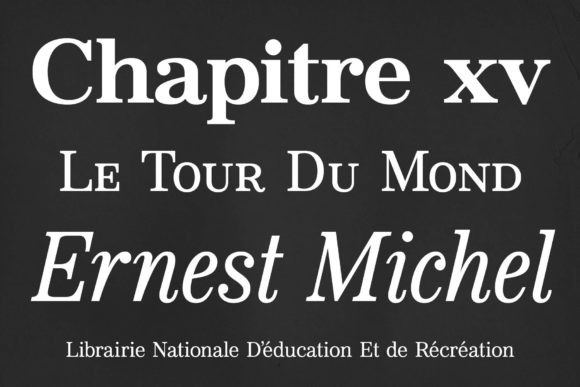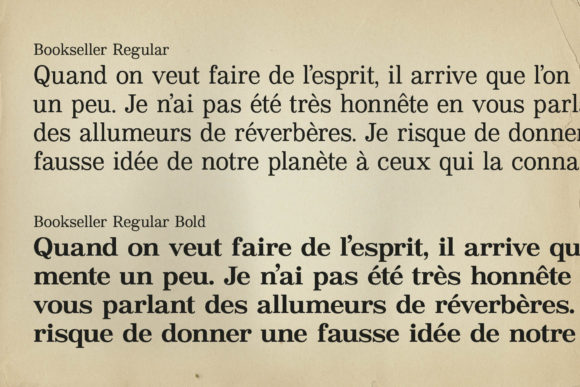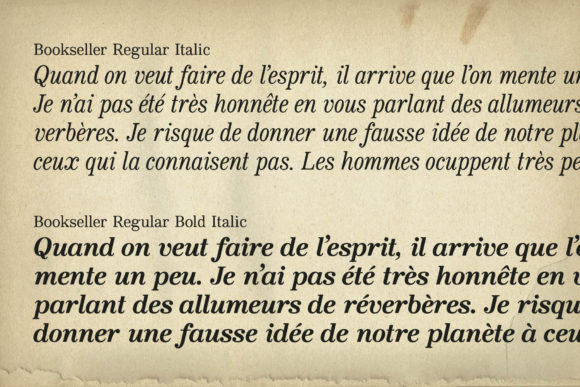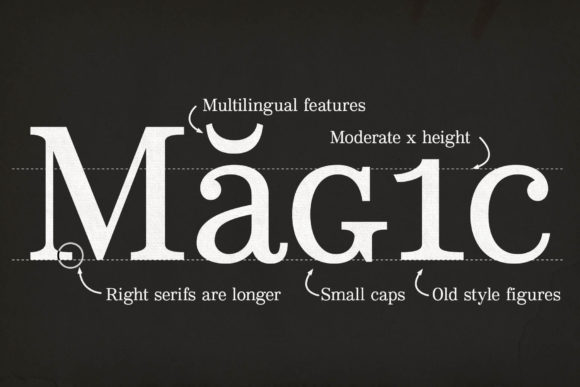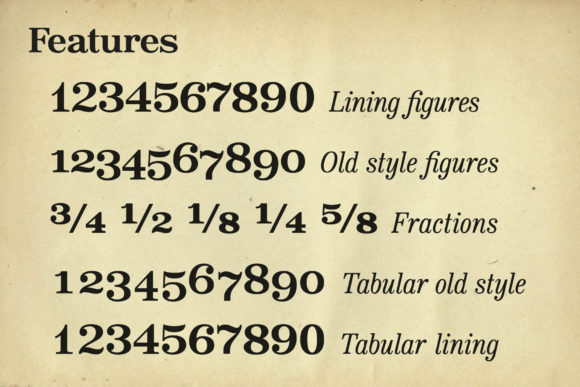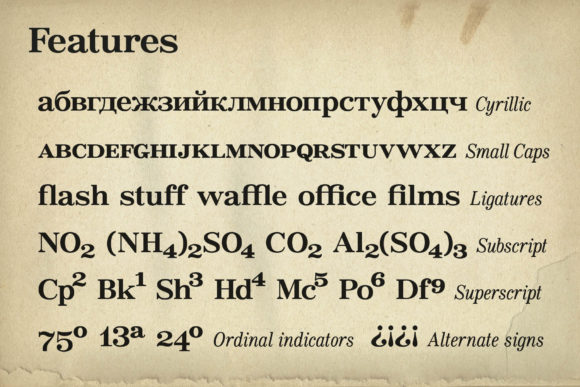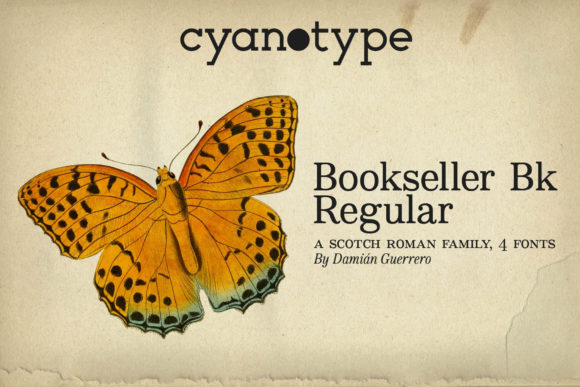
Discover the Charm of Bookseller Bk Regular Font: A Serif Font for Timeless Designs
In the world of typography, fonts play a crucial role in bringing a design to life. For designers and crafters looking for a serif font that exudes an old book feeling, Bookseller Bk Regular is an excellent choice. This versatile font is perfect for a variety of applications, including books, magazines, editorial design, small text, and captions. In this article, we’ll dive into the features and benefits of Bookseller Bk Regular, exploring how it can elevate your designs.
What is Bookseller Bk Regular?
Bookseller Bk Regular is a serif font designed specifically for text at small sizes. Its classic design takes inspiration from traditional book typography, making it ideal for projects that require a nostalgic or vintage feel. The font features solid shapes, ensuring clarity and readability even at smaller sizes.
Key Features of Bookseller Bk Regular
One of the standout features of Bookseller Bk Regular is its extensive character set. The font includes:
• Small Caps: Perfect for headings, titles, and emphasis, small caps add a touch of elegance to any design.
• Old-style Figures: These numerals have a traditional, organic feel, making them suitable for body text and adding to the font’s old book aesthetic.
• Lining Figures: For use in tables, captions, or any context where a more contemporary look is desired.
• Fractions: A thoughtful inclusion for designs that require mathematical expressions or recipe formatting.
• Basic Cyrillic Alphabet: Expanding its usability for international projects or those targeting a broader audience.
Applications of Bookseller Bk Regular
The versatility of Bookseller Bk Regular makes it suitable for a wide range of applications:
• Books and Magazines: Its design is optimized for long reads, offering comfort and a classic feel to readers.
• Editorial Design: Use it for articles, features, and opinion pieces to convey a sense of tradition and authority.
• Small Text and Captions: The font’s clear and readable design makes it perfect for smaller sizes, ensuring legibility without compromising on style.
Bookseller Bk Regular offers several benefits to designers and crafters:
• Time-saving: With its comprehensive feature set, designers can achieve a rich, detailed look without the need for extensive customization.
• Consistency: The font’s cohesive design ensures consistency across different elements of a project, from headings to body text.
• Versatility: Whether you’re working on a digital platform or a print project, Bookseller Bk Regular adapts seamlessly, offering a timeless aesthetic.
Tips for Using Bookseller Bk Regular
To get the most out of Bookseller Bk Regular, consider the following tips:
• Pair with Modern Fonts: Combine Bookseller Bk Regular with a more contemporary sans-serif font for a striking contrast.
• Experiment with Sizes: While it’s designed for small sizes, experimenting with larger sizes can yield interesting, impactful results.
• Utilize Small Caps: Don’t hesitate to use small caps for added visual hierarchy and a sophisticated look.
Bookseller Bk Regular is more than just a font; it’s a design tool that brings a piece of typographic history to your projects. Its classic design, extensive feature set, and versatility make it an invaluable asset for designers and crafters aiming to create timeless, engaging designs. Whether you’re working on a book, magazine, or digital content, Bookseller Bk Regular offers the perfect blend of nostalgia and readability, ensuring your work stands out in the best possible way.